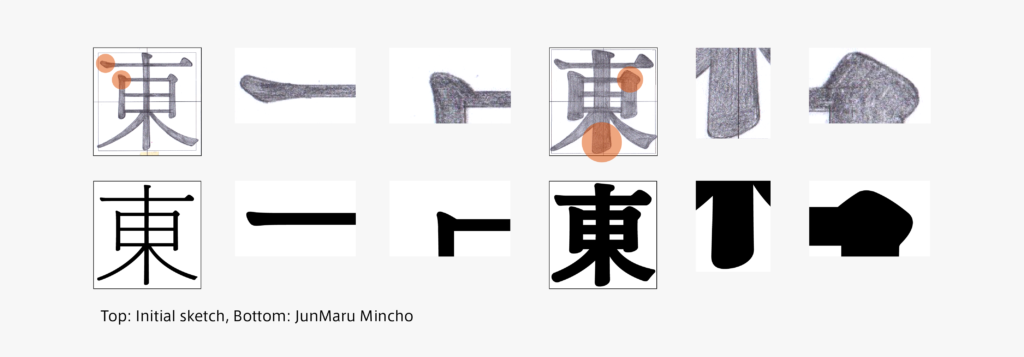
JunMaru Mincho Development Story 2: “Details of Strokes”
The kanji creation of JunMaru Mincho started from a sketch. Looking back and reviewing the sketch drawn quite a while ago, I notice many things, but the shape is significantly different. Kana created ahead of kanji had a bit more contrast in the initial stage. Therefore, the horizontal stroke and the tip of the left sweep are thinner in the sketch. Further details of strokes include a fat and heavy brushstroke beginning for the vertical stroke and uroko, with a particularly large size.
Comparing the sketch and JunMaru Mincho, the modulation at the beginning of a brushstroke for the horizontal stroke remains just a little, and the degree of widening at the ending of a brushstroke for the vertical stroke is minimized considerably. Parts with too much modulation were corrected to give a new impression without becoming stale while maintaining roundness in the details of the strokes.
What is a good degree for the details regarding roundness, which is a feature of JunMaru Mincho? I tried with extreme shapes and interpolation, and sketched structures with wide inside spaces between strokes. Looking back at the changes in these shapes and records of the correction process, it has been a very long journey.